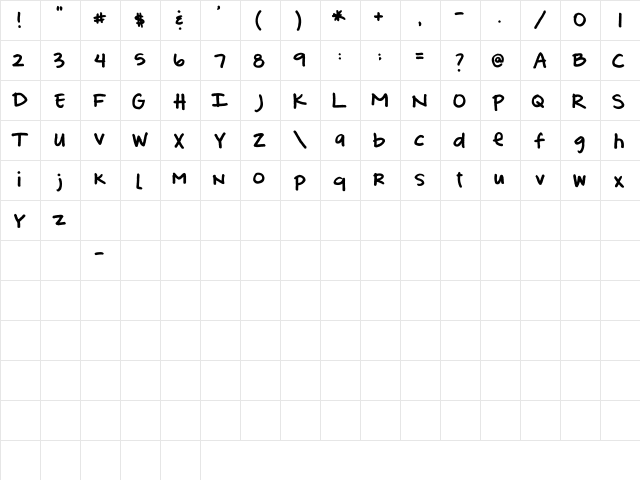
2Peas Nevermind 2Peas Nevermind
Design Context for 2Peas Nevermind Typeface
2Peas Nevermind is a composed and adaptable typeface that performs quietly and consistently across a wide range of design contexts.